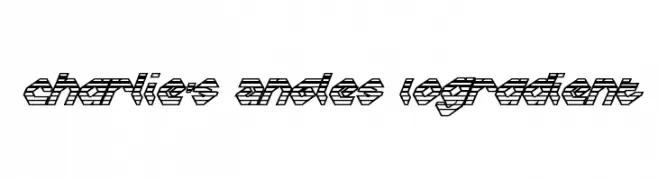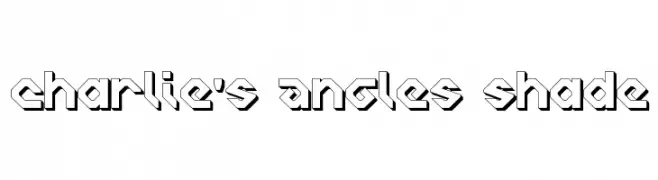
( Paul Lloyd Fonts )
A bold, wide font with a shadow effect for a three-dimensional look.
( Paul Lloyd Fonts )
A bold, shadowed font with a modern, three-dimensional style.
( Fonts by Rich Gast - www.greywolfwebworks.com OFF SITE )
A bold, shadowed font with a strong, three-dimensional effect.
A bold, decorative font with a shadow effect for a three-dimensional look.
( Fonts by ShyFonts )
A bold, pixelated, and shaded oblique font with a retro gaming aesthetic.
( Fonts by ShyFonts )
A pixelated, shaded font with a retro, 8-bit style.
( Fonts by ShyFonts )
A bold, pixelated font with a shaded, three-dimensional effect.
A bold, playful font with a 3D effect and rounded, irregular characters.
( Fonts by Boba Fonts )
A bold, futuristic outline font with a sci-fi aesthetic.
A bold, geometric font with a 3D effect and industrial style.
A bold, decorative font with a shadow effect and intricate details.
A bold, 3D italic font with a geometric and playful style.
A bold, geometric font with Art Deco influences and a futuristic style.
A bold, vintage-style font with a three-dimensional shaded effect.
( Fonts by Rich Gast - www.greywolfwebworks.com OFF SITE )
A bold, three-dimensional font with angular, geometric characters.
A bold, geometric font with a three-dimensional shadow effect.
A bold, three-dimensional font with a vintage shadow effect.
( Fonts by Paul Lloyd )
A shadowed, art deco-inspired font with geometric shapes and elegant lines.
( Fonts by Daniel Gauthier )
A bold, decorative font with a distressed, vintage texture.
( Fonts by Paul Lloyd )
A bold, shadowed blackletter font with intricate details and a traditional yet modern feel.
A bold, striped, 3D font with a modern and playful style.
( Fonts by ShyFonts )
A bold, futuristic oblique font with a shaded, three-dimensional effect.
( Fonts by ShyFonts )
A bold, geometric font with a 3D shaded effect, ideal for futuristic designs.
( Fonts by www.vicfieger.com )
A bold, distressed font with a rugged, textured appearance.
A playful, bold font with a shadow effect and whimsical, cartoonish style.
A bold, geometric font with a retro-futuristic style and layered outlines.
( Fonts by ShyFonts )
A bold, 3D font with strong shadow effects for impactful designs.